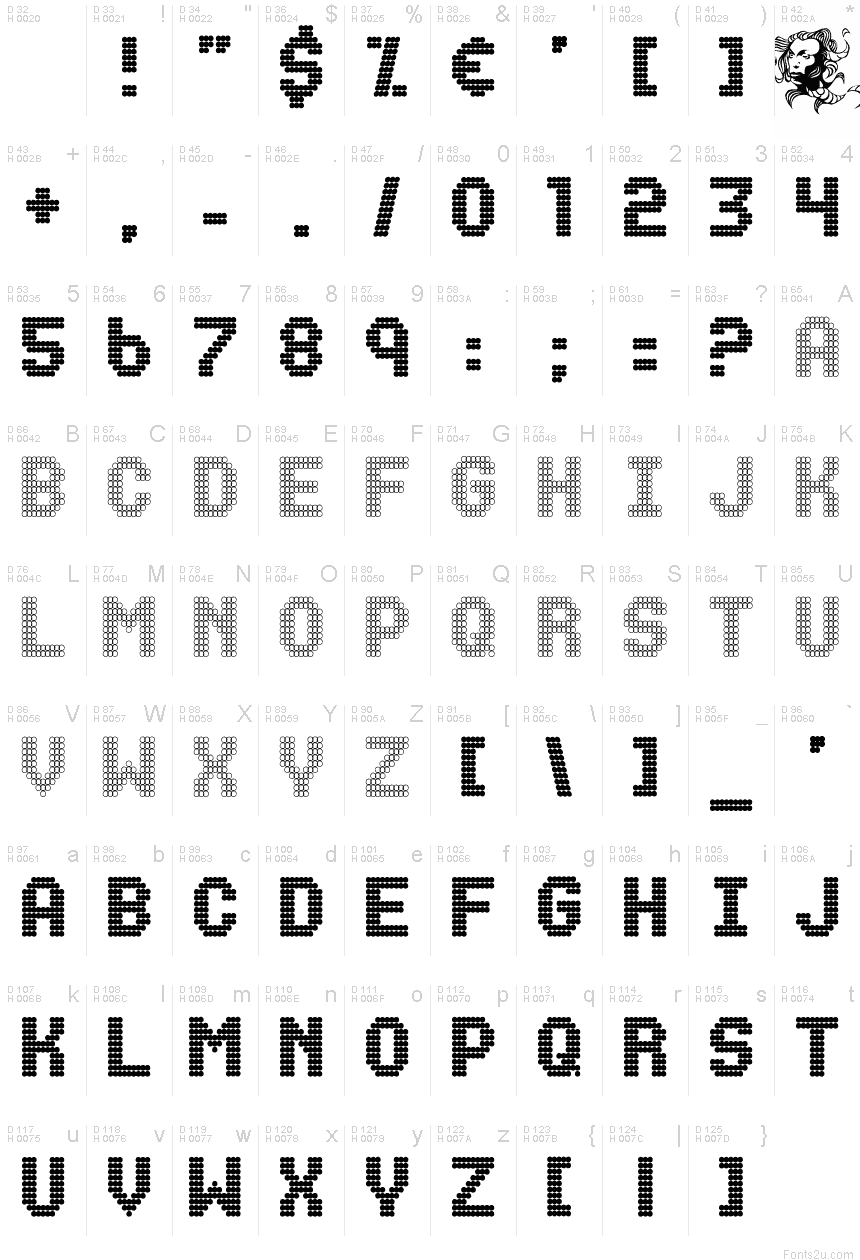
Renegade Mistress by JMEverett is a free dot-matrix display font assembled from compact circular modules. Its blocky capitals recall arcade lettering and rows of marquee bulbs. The effect is mechanical yet lively.
A retro game studio or music venue could build its branding around the electronic texture. It also suits event posters, merchandise, and digital graphics for nightlife or gaming. The circles can echo LED panels or button grids, folding the words into the surrounding imagery.